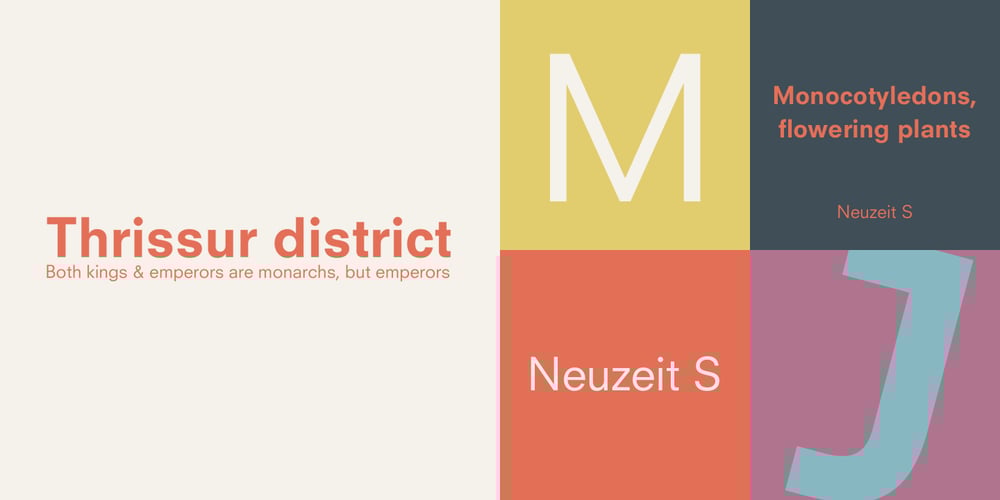
Neuzeit S LT
Neuzeit S LT font
Neuzeit S LT Font Family was designed by Linotype Design Studio and published by Linotype. Neuzeit S LT contains 2 styles and family package options. Designed by Wilhelm C. Pischner, Neuzeit-Grotesk first appeared in 1928 with the font foundry D. Stempel AG. In 1966, Neuzeit S was introduced by Linotype-Hell AG, intended for large bodies of text and predecessor of Siemens corporate design. Neuzeit S is timeless, combining strength of form and objectivity and legible even on inferior papers.